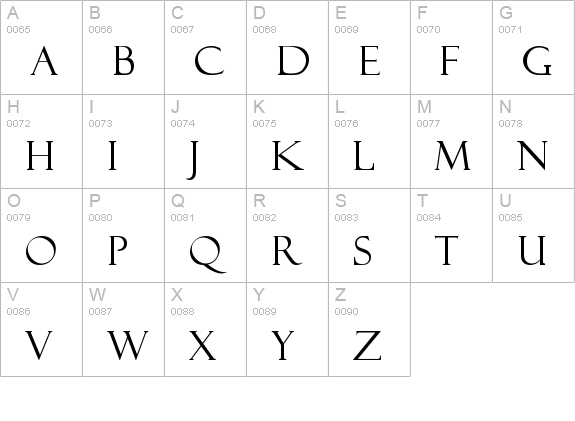
Felix titling font for mac. Felix titling is based closely on an alphabet developed by the veronese calligrapher and painter, felice feliciano, which appeared in 1463 in his treatise on roman inscriptions. See preview felix titling mt font, write comments, or download felix titling mt font for free. Documents that have cloud fonts will render correctly in office 2019.
Download free font felix titling mt. Felix titling, monotype type drawing office 1934. Regular), 232 characters in total.
The app keeps all of your shared replies so you can go back and listen to individual messages. Download free font felix titling. Felix titling is a titling font consisting of capitals, figures and punctuation.